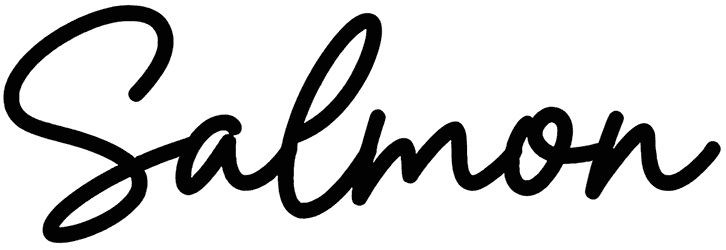
Salmon Font
A natural letterform with a casual form can be used for countless designs, from classic to modern ones, and guess what? You are watching one of them. The Salmon font, with its perfect cover of character,s is a nice selection for different projects such as food branding. Try this handwritten font for your next design and communicate well with your customers.